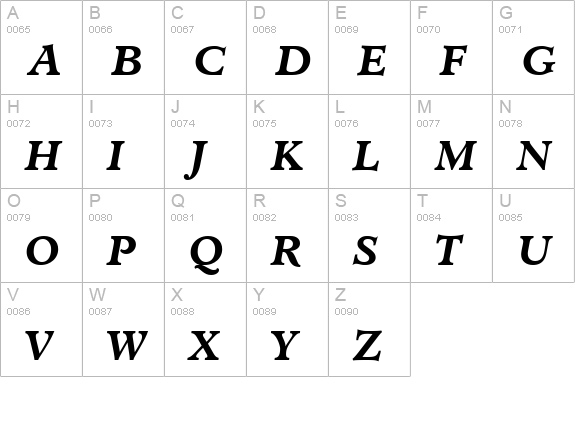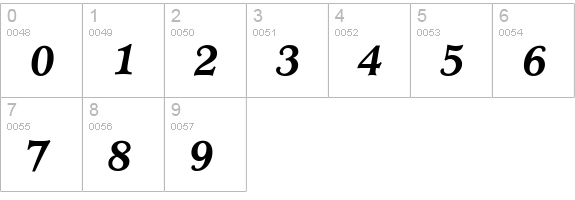
Cleric SSi Bold Italic is a strong, high-contrast, italic variant in the Cleric typeface family \xE2\x80\x94 well suited to headlines, attention-grabbing titles, and strong calls-to-action.
Cleric SSi Bold Italic is a versatile and elegant font that exudes a sense of sophistication and modernity. Its bold and italic design makes it perfect for adding emphasis and style to your projects. Whether you're designing a poster, invitation, or logo, Cleric SSi Bold Italic will make your text stand out with its unique flair. The best part is, Cleric SSi Bold Italic is available for free download at FontsMarket.com. This means you can easily access this high-quality font without any cost, making it a valuable addition to your font collection. Don't miss out on the opportunity to elevate your designs with Cleric SSi Bold Italic - download it for free today!